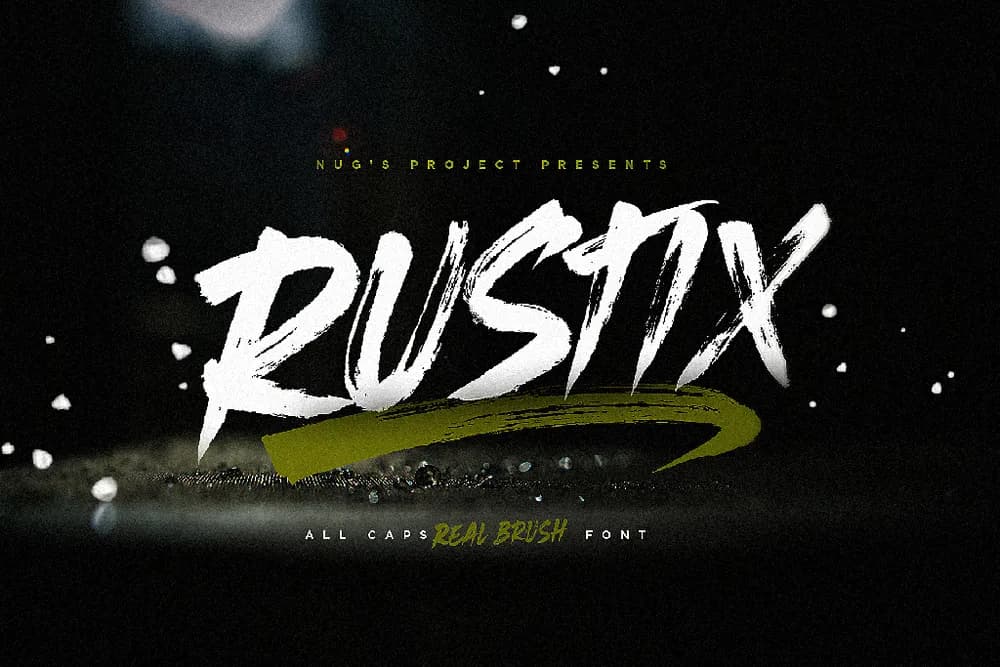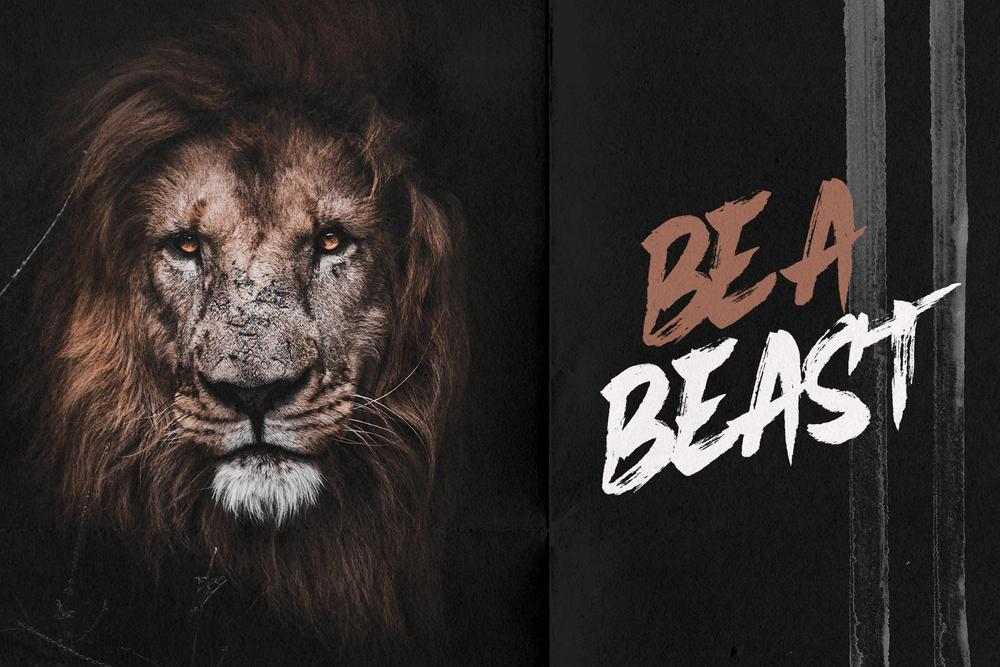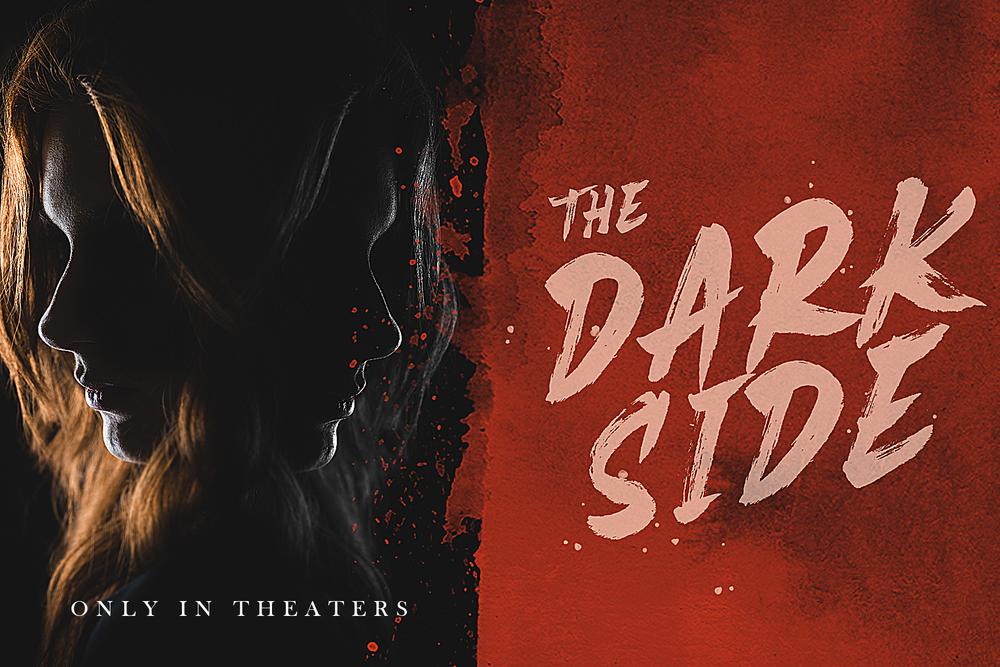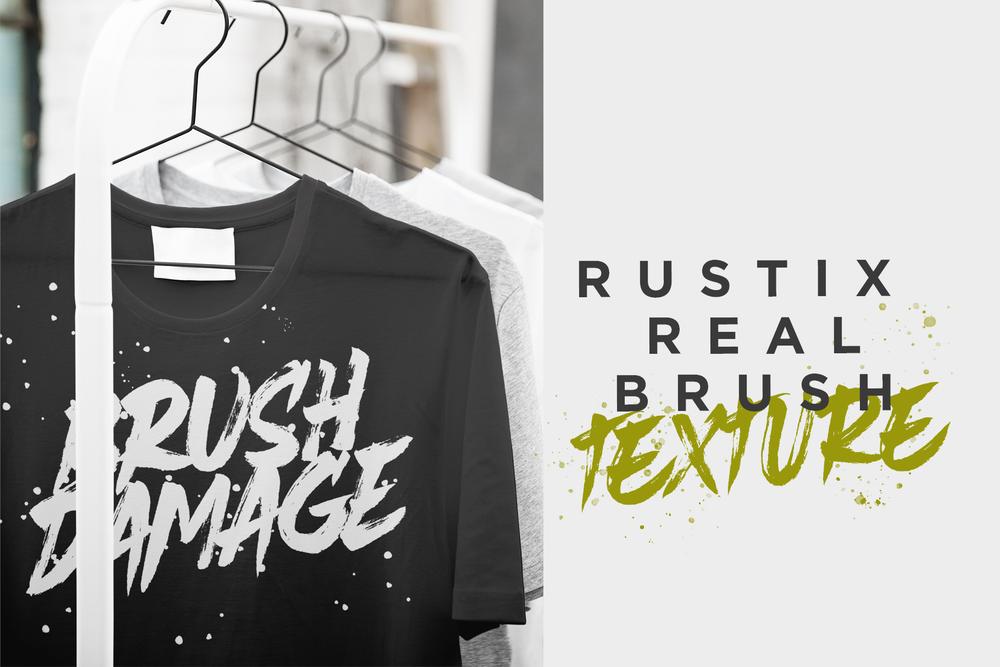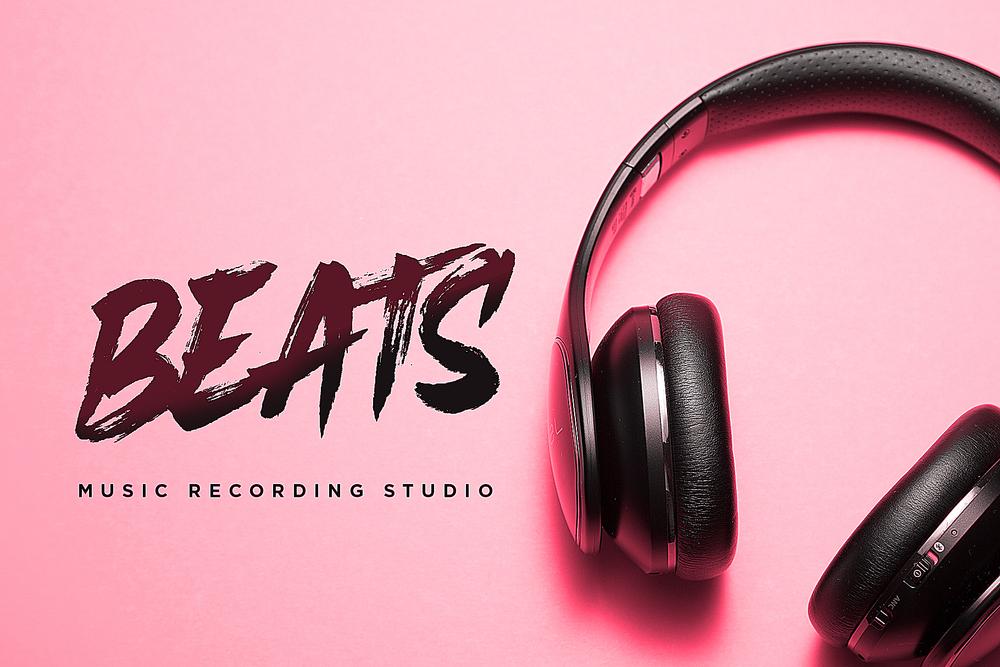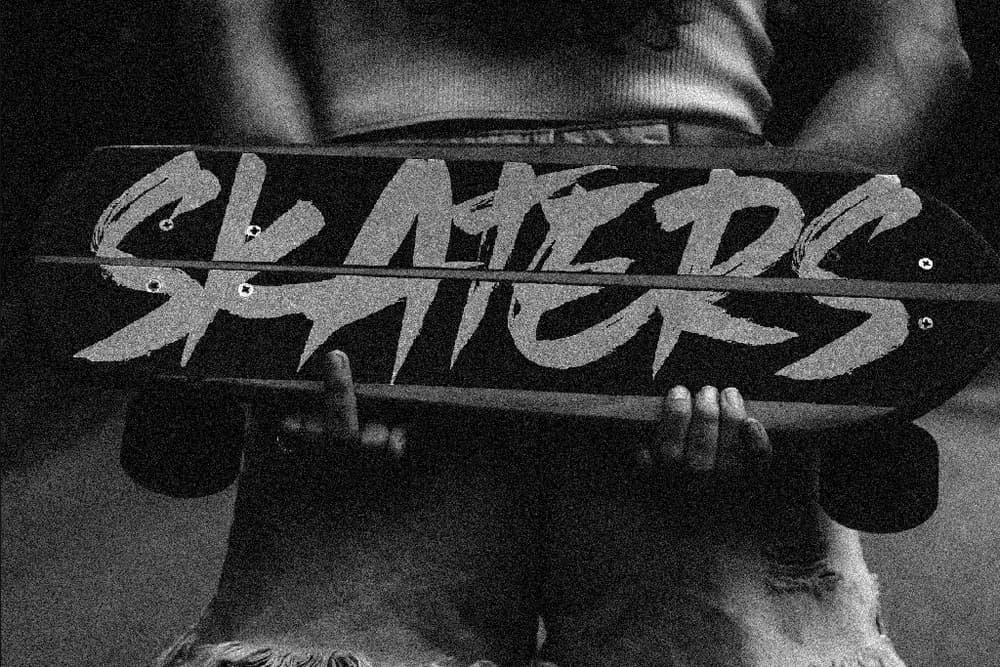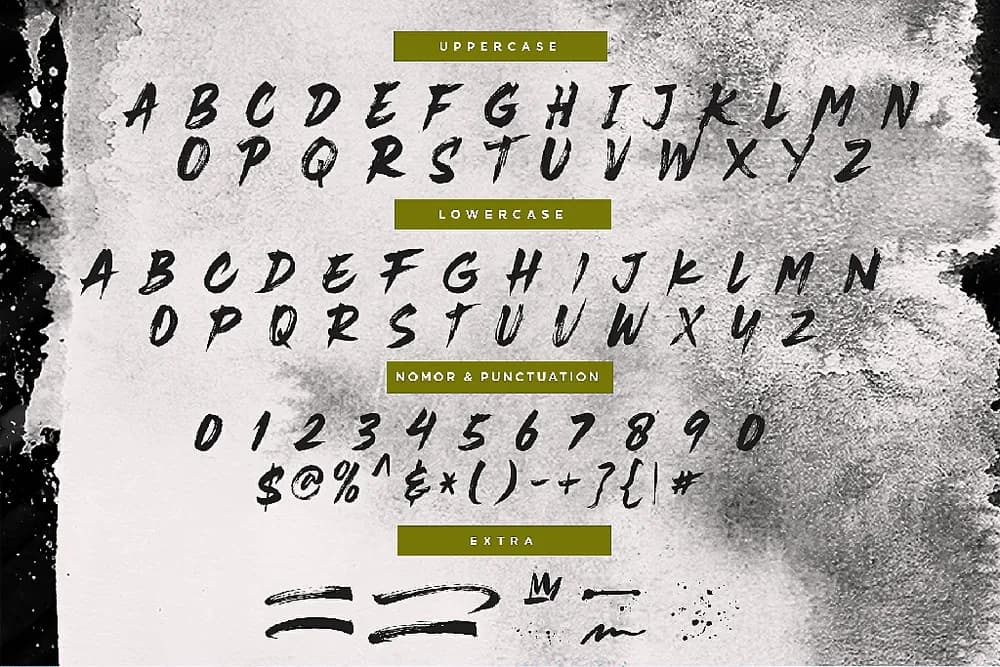
Rustix is a brush stroke font with a very deep personality. The font is perfect for posters, t-shirts, pillows, bags, mugs, badges, headings, logos, invitations and much more! Rustix ttf otf Rustix Swash ttf otf, Rustix woff Swash Eps. ai.